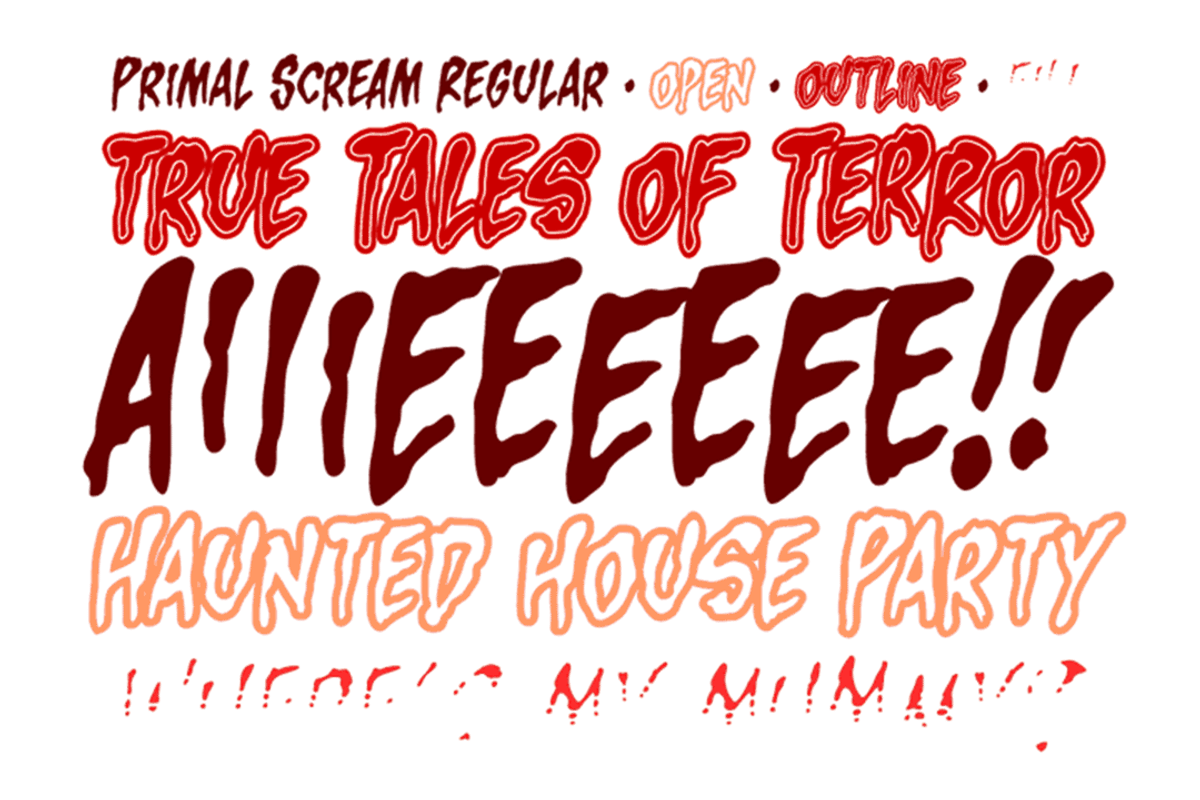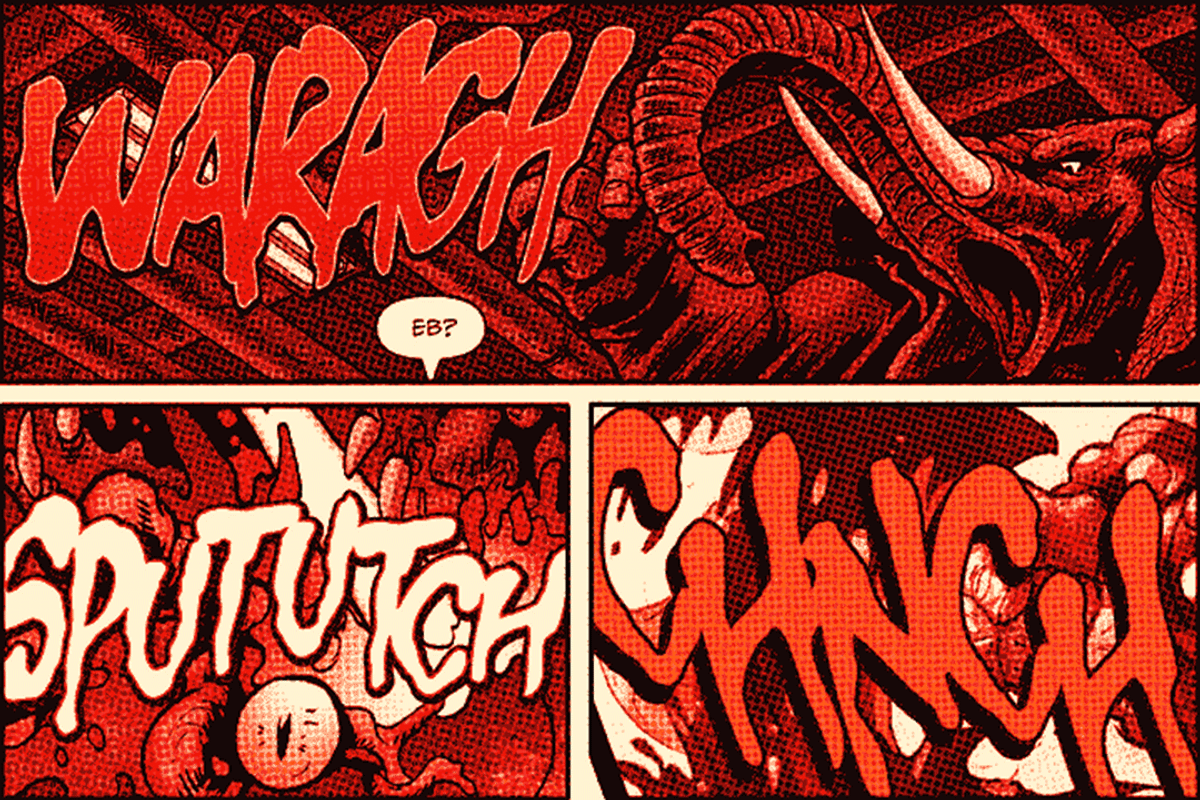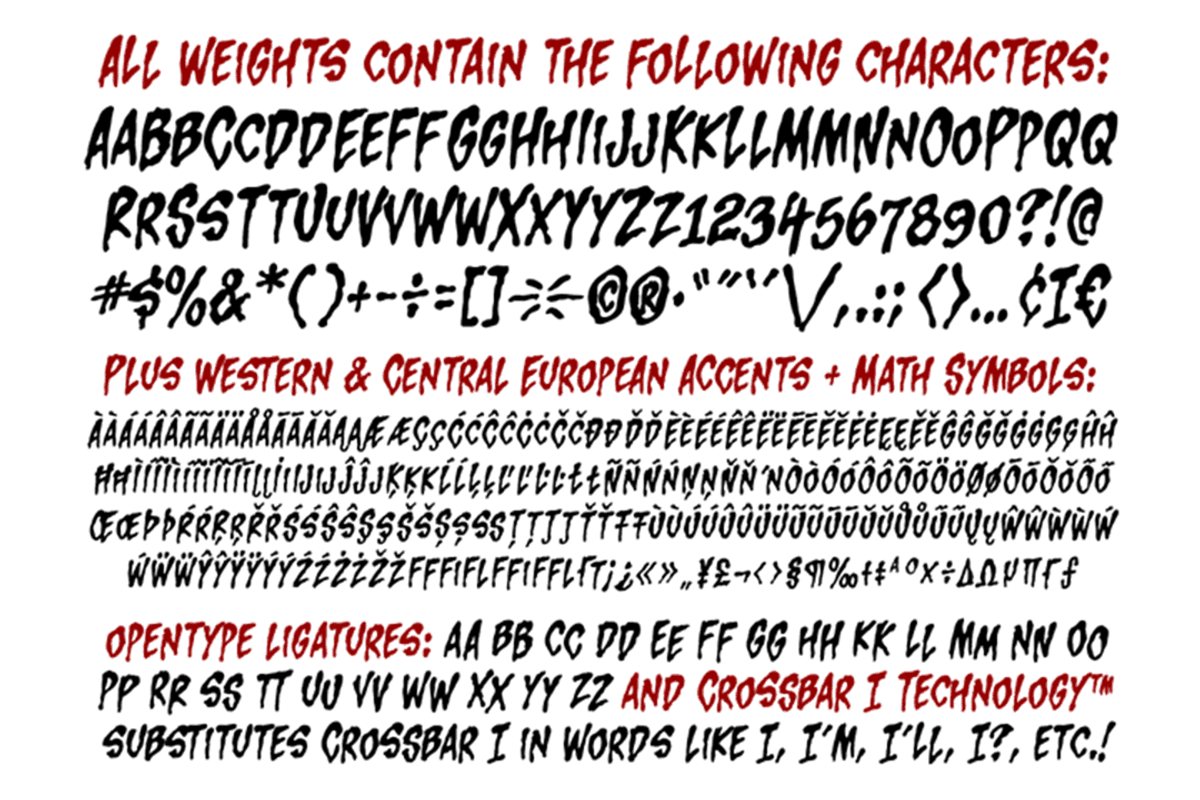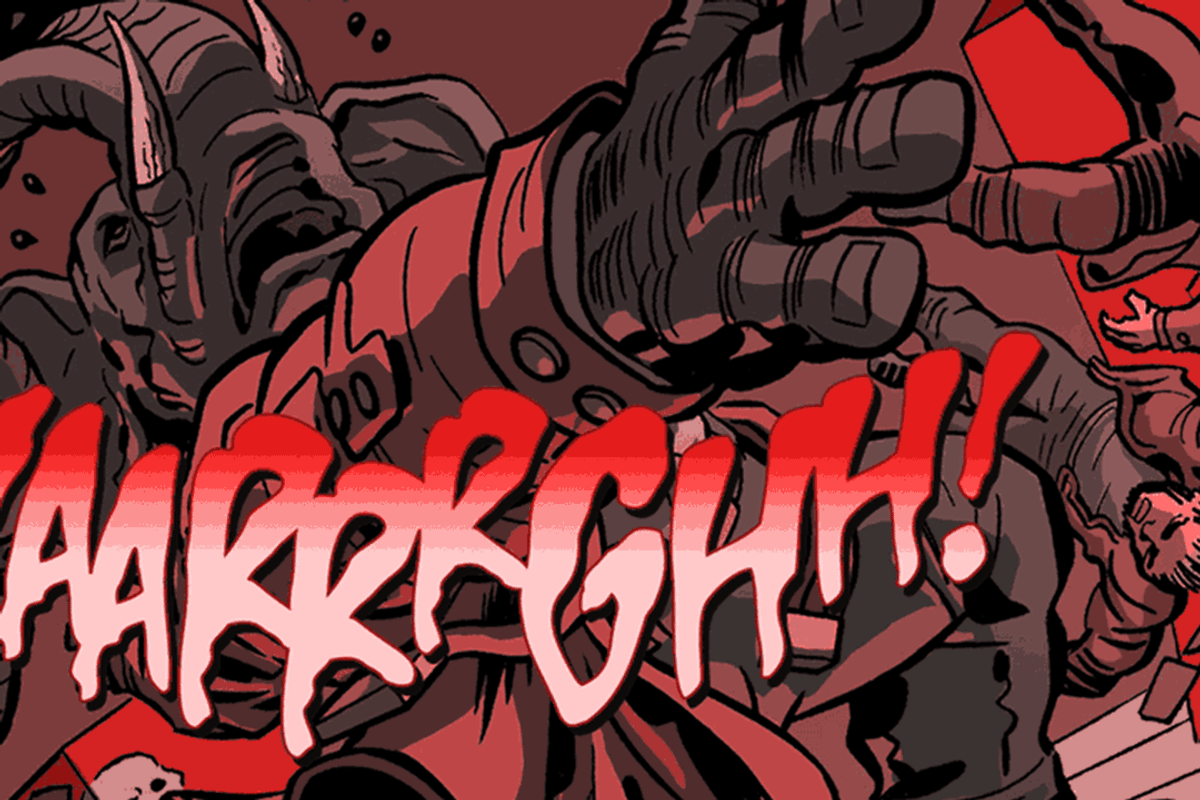
Primal Scream
Primal Scream by Comicraft Fonts is a font selected for branding, posters, packaging, typography.
Why Primal Scream is worth a look
Primal Scream by Comicraft Fonts fits naturally into Branding, posters, packaging, typography.